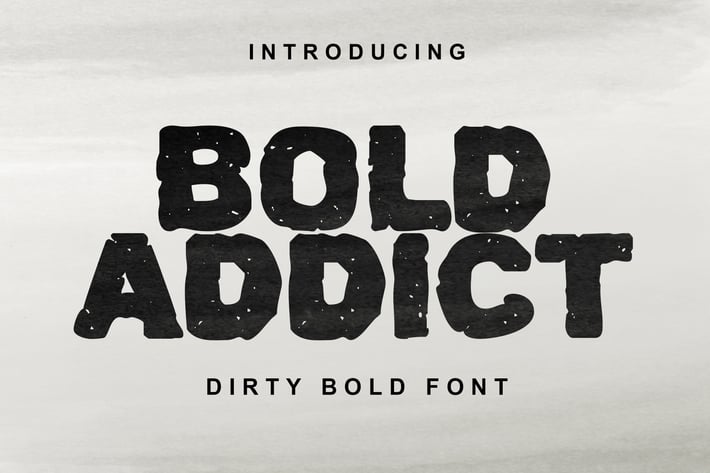
Bold Addict Font
Bold Addict is strong handmade font. This is your best choice for your design. You can use this for logo, poster, magazine, clothing, or others.